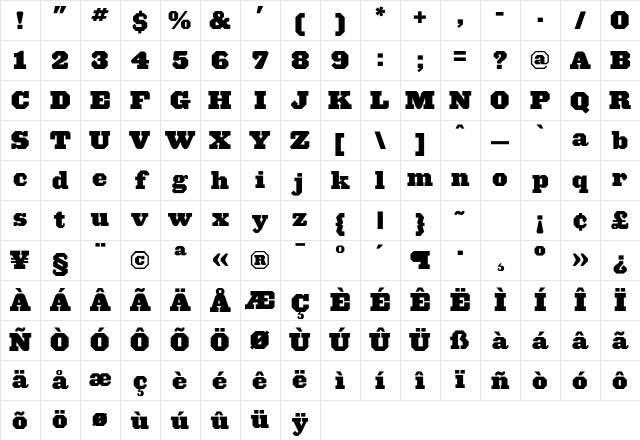
Acropolis HTF-Black
Style: HTF-Black
Acropolis Family
Acropolis HTF-Black
Design Context for Acropolis
Acropolis is a composed and adaptable typeface that performs quietly and consistently across a wide range of design contexts.